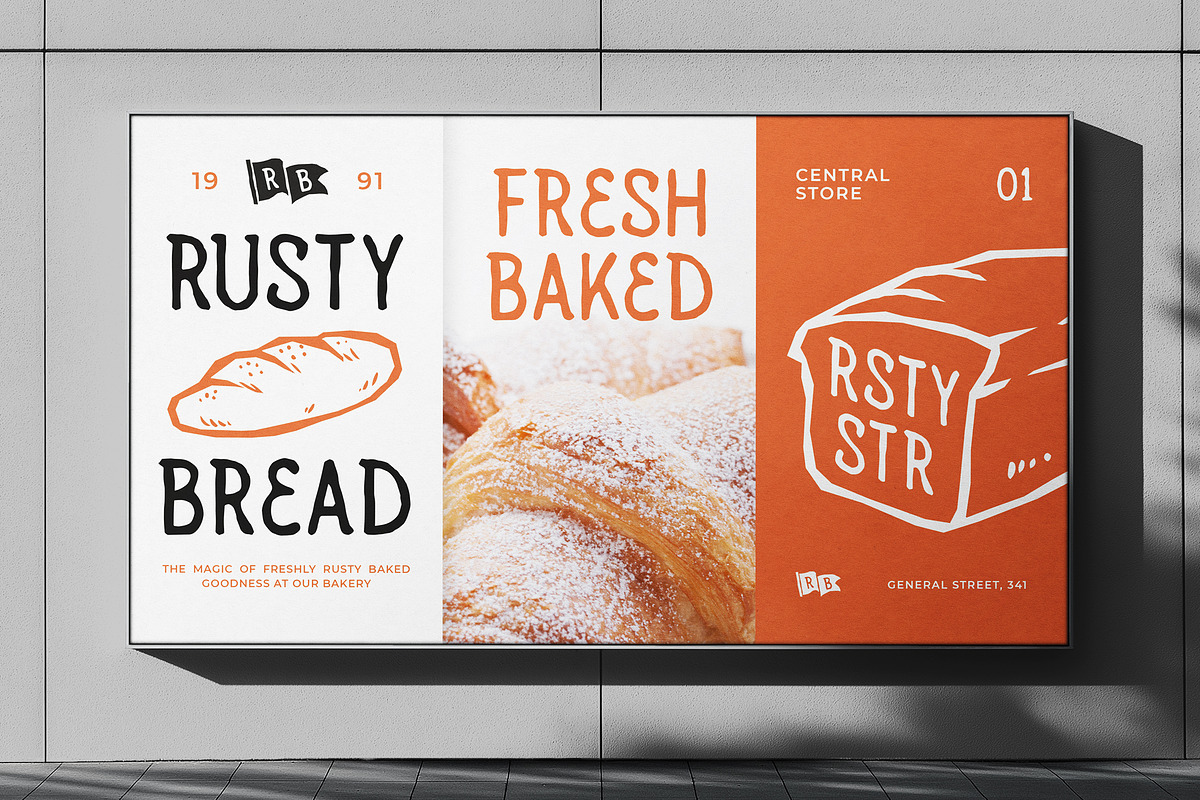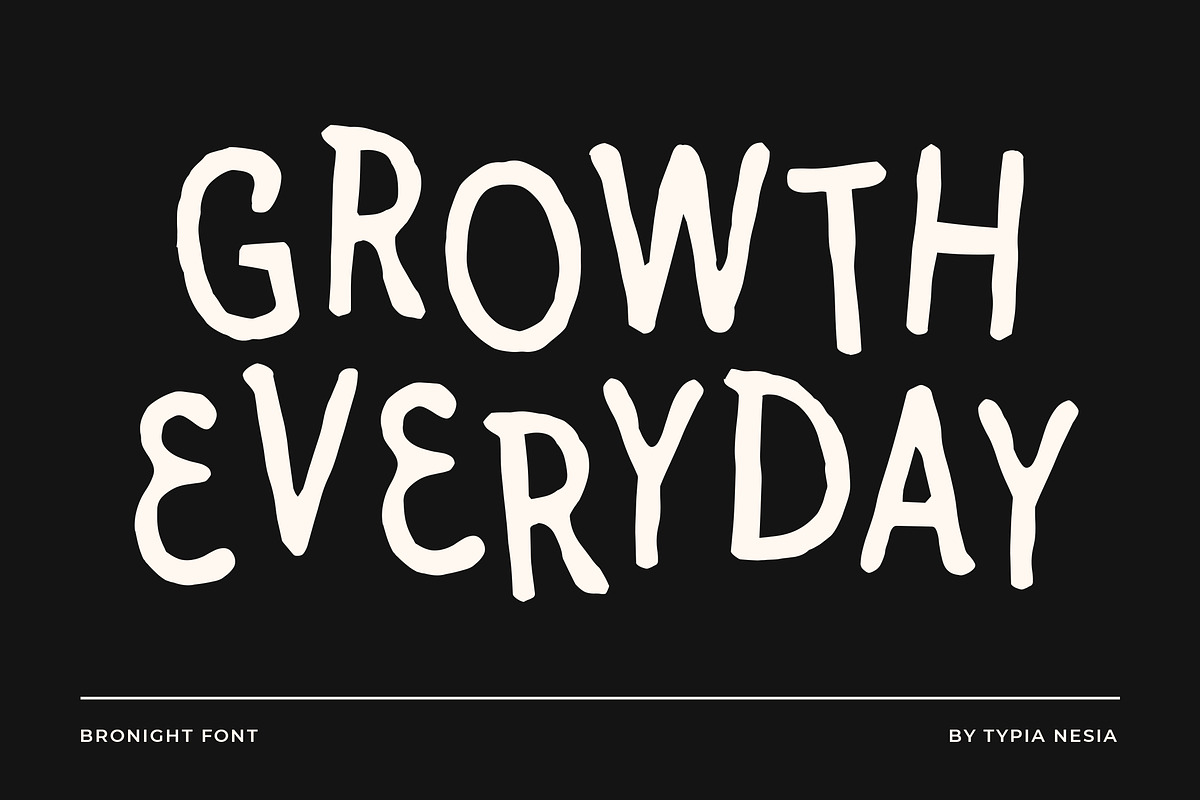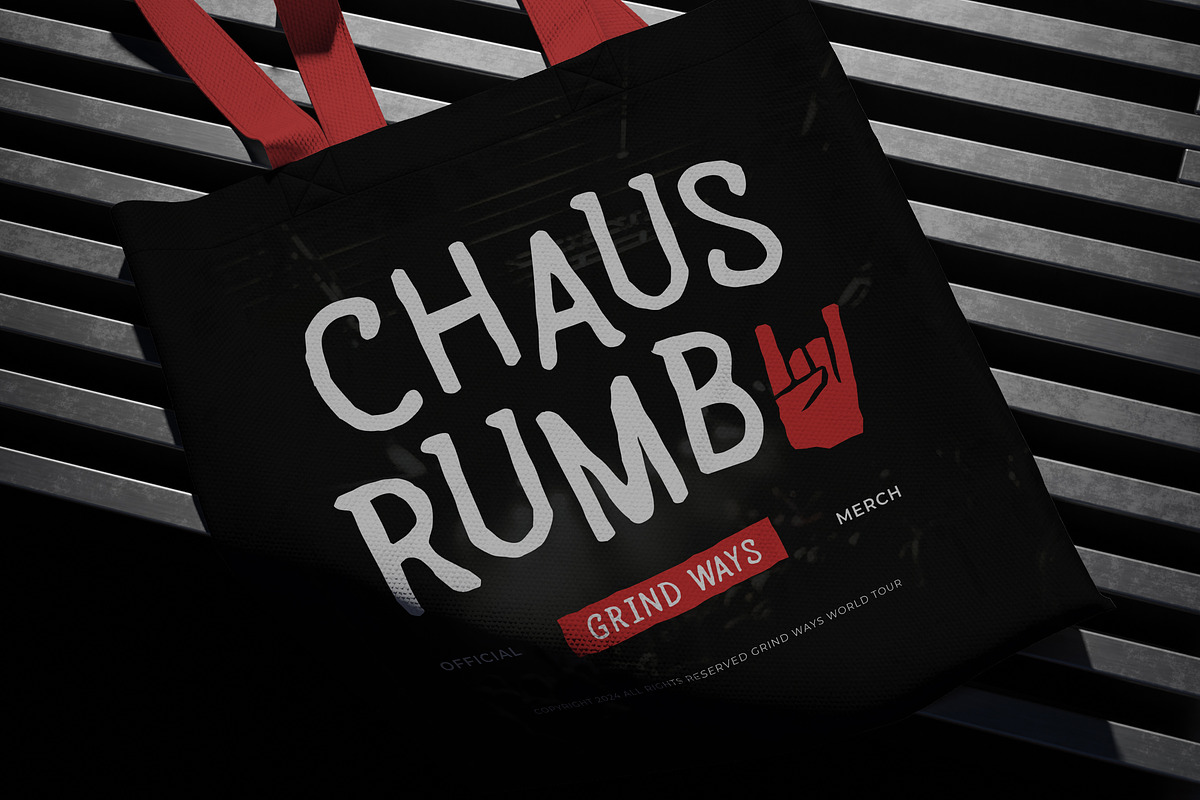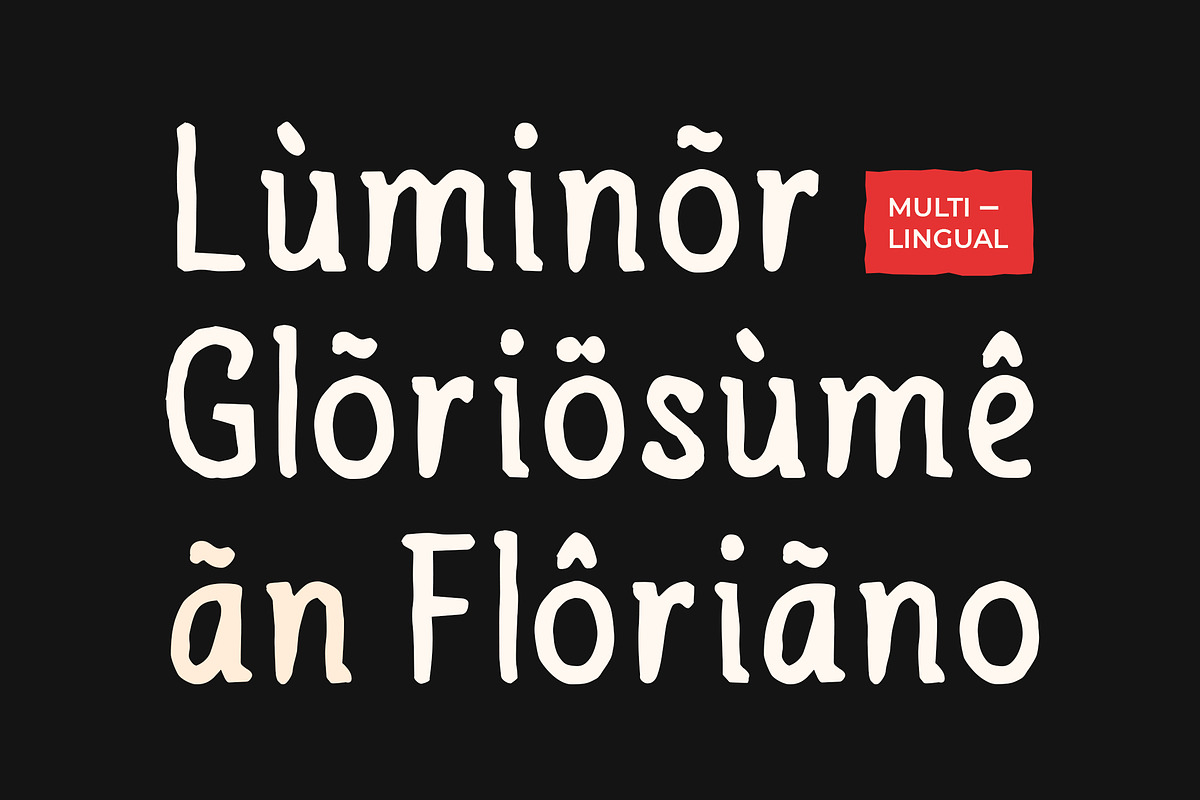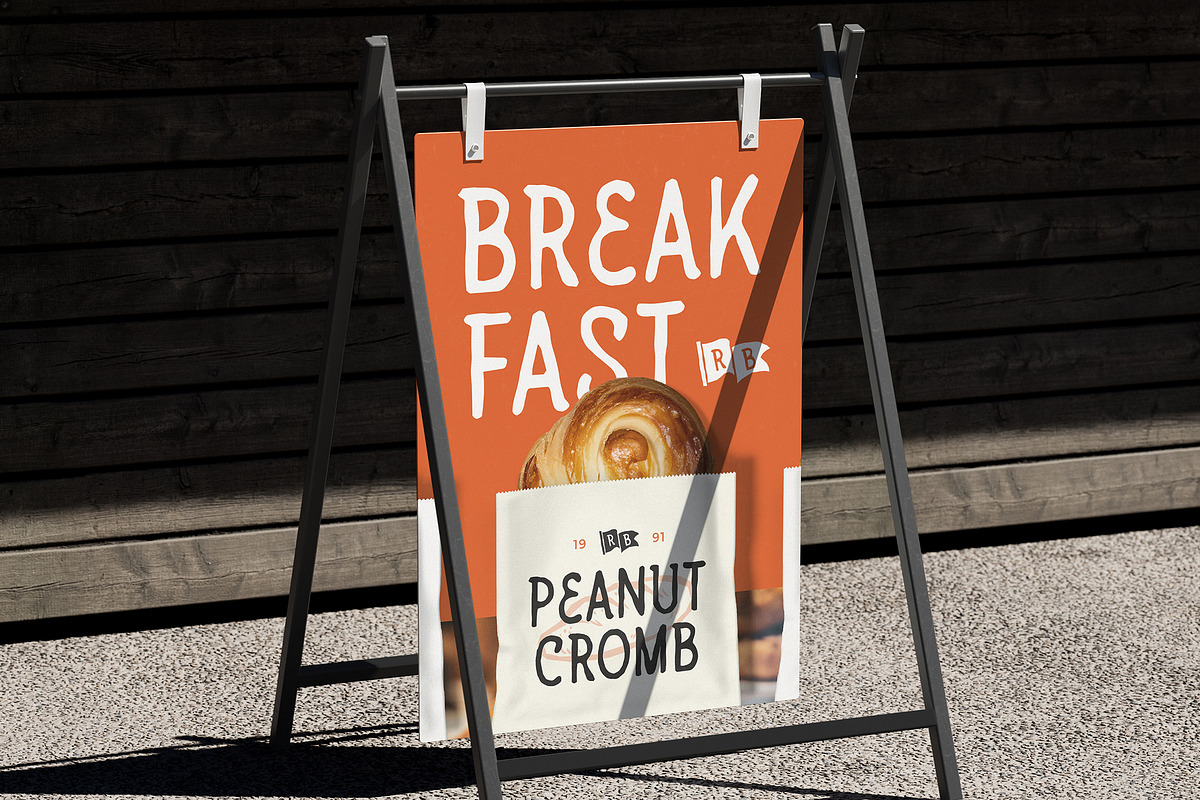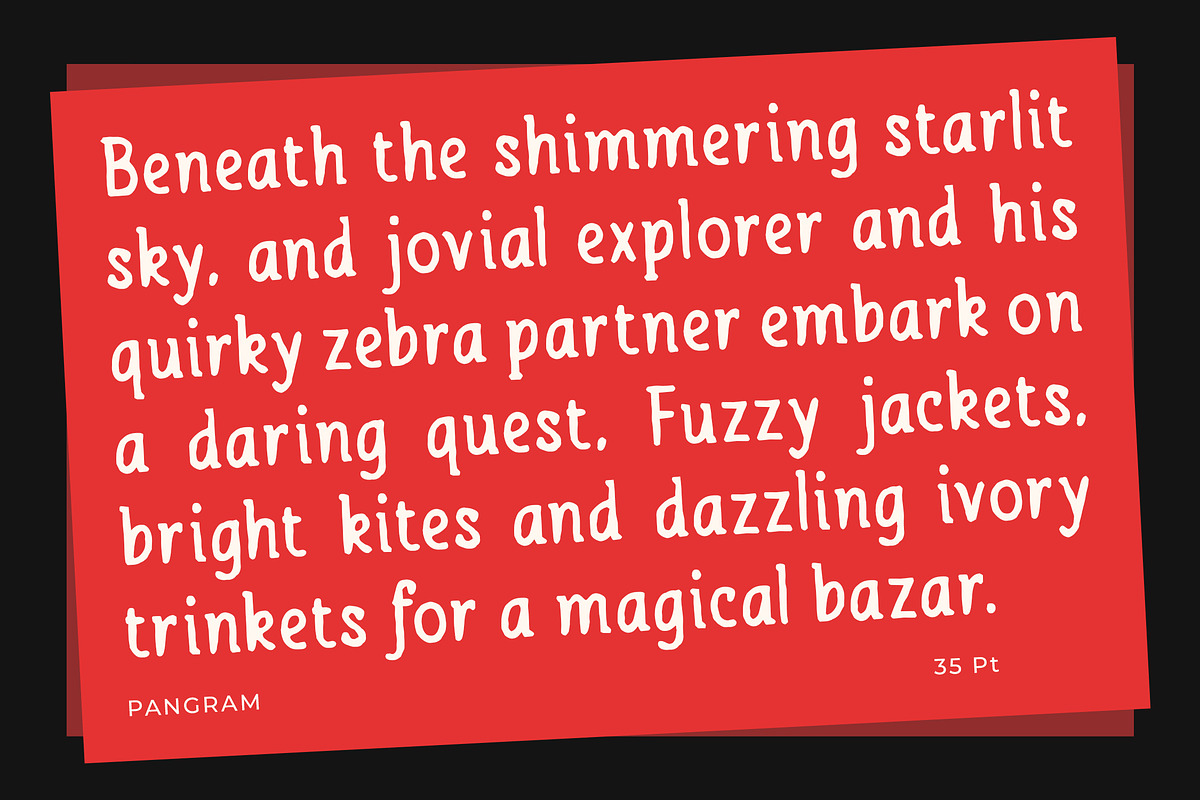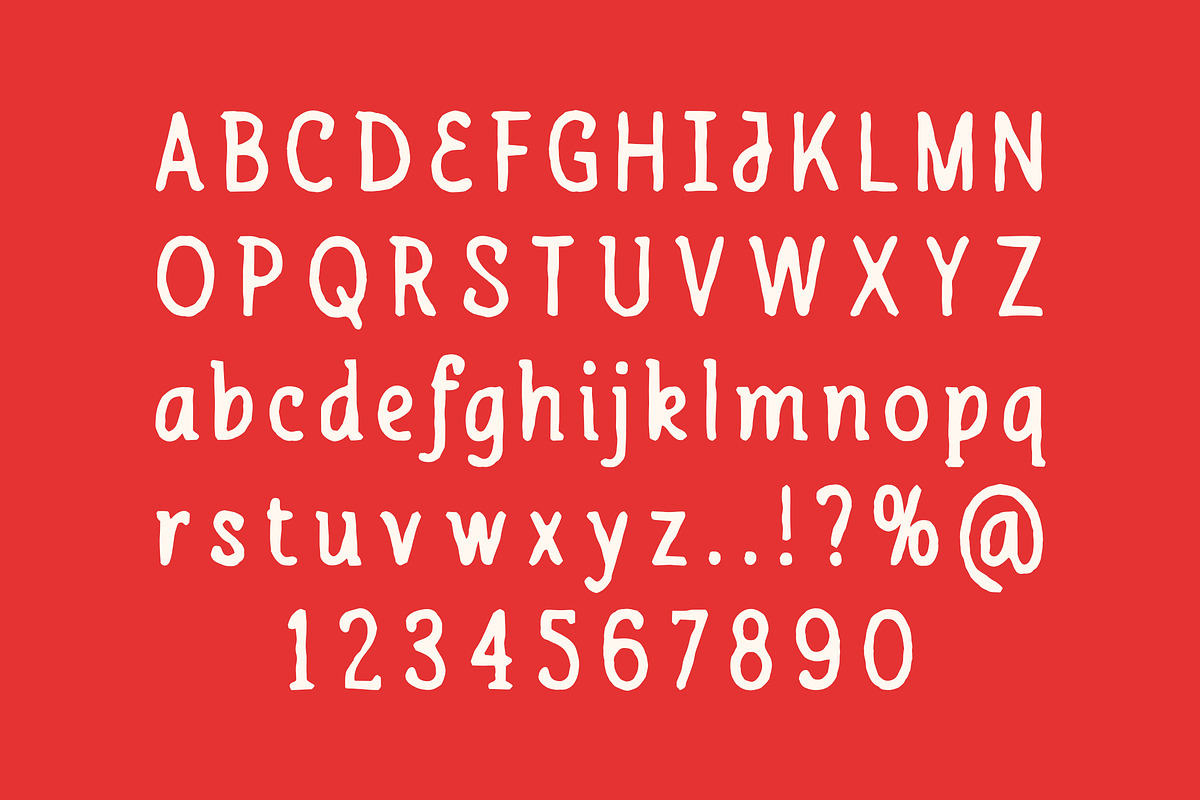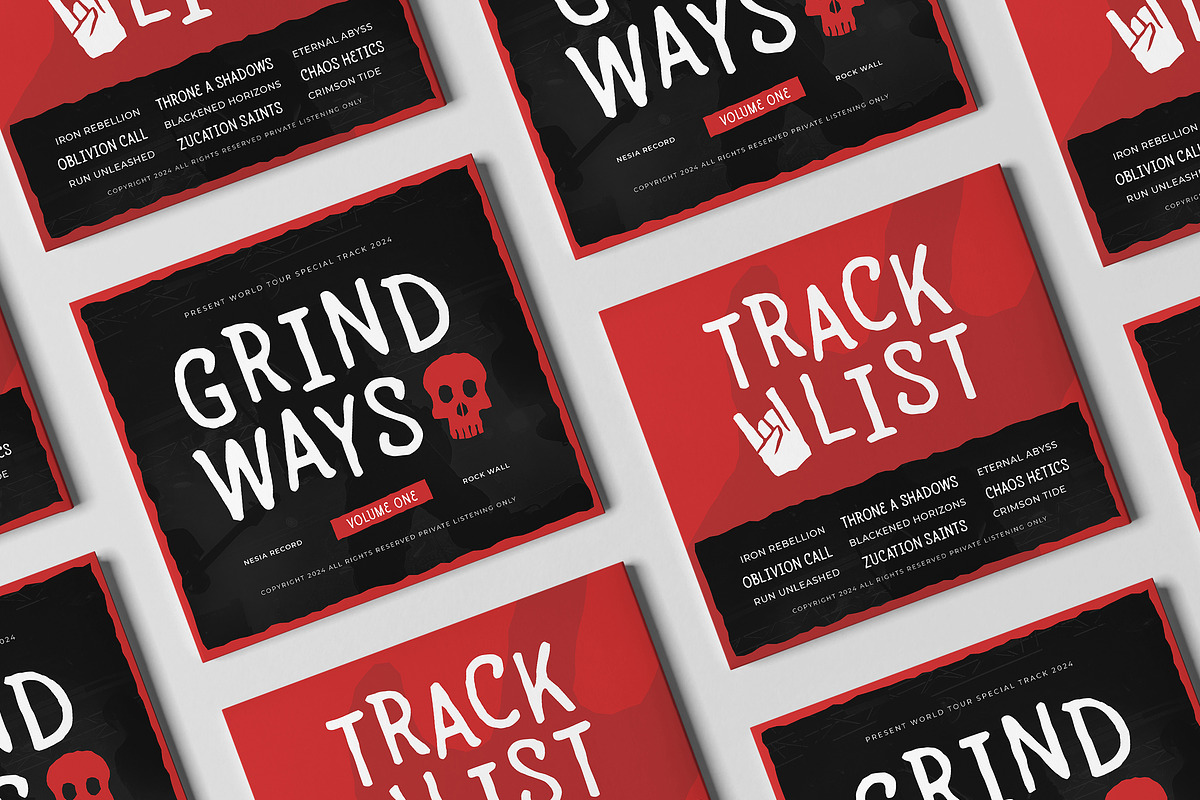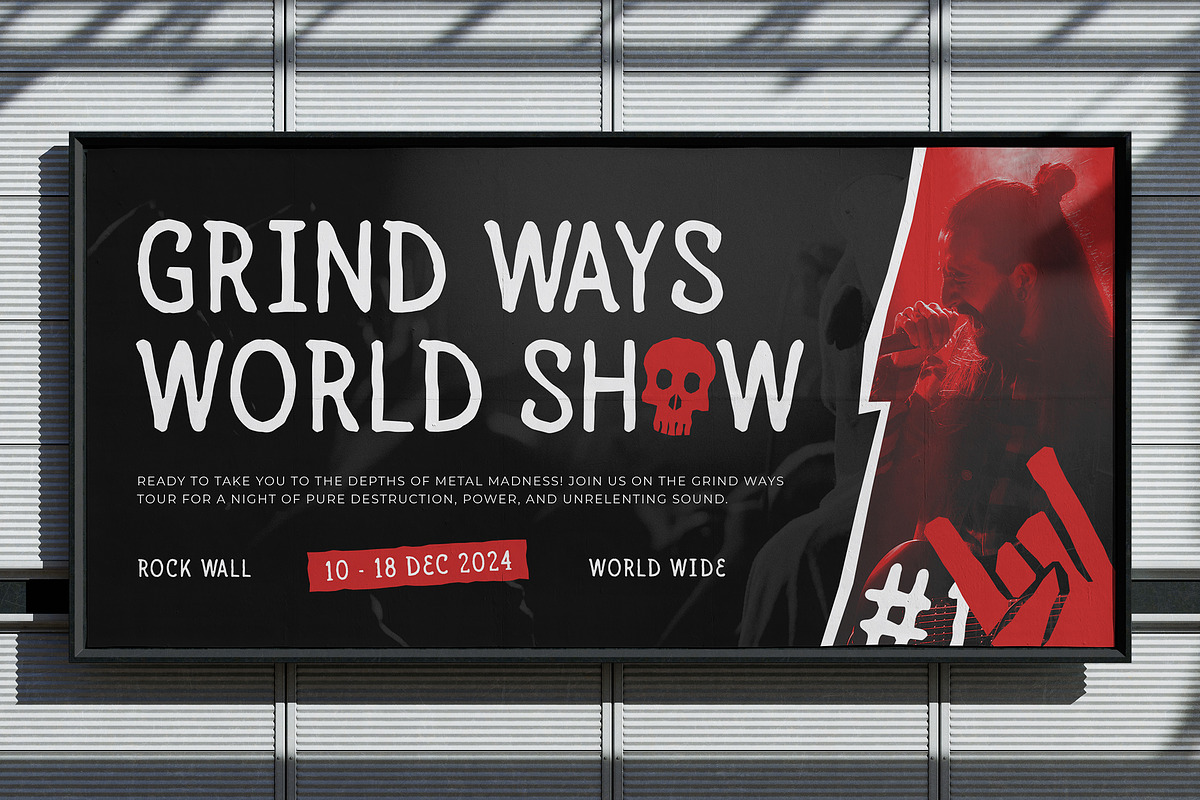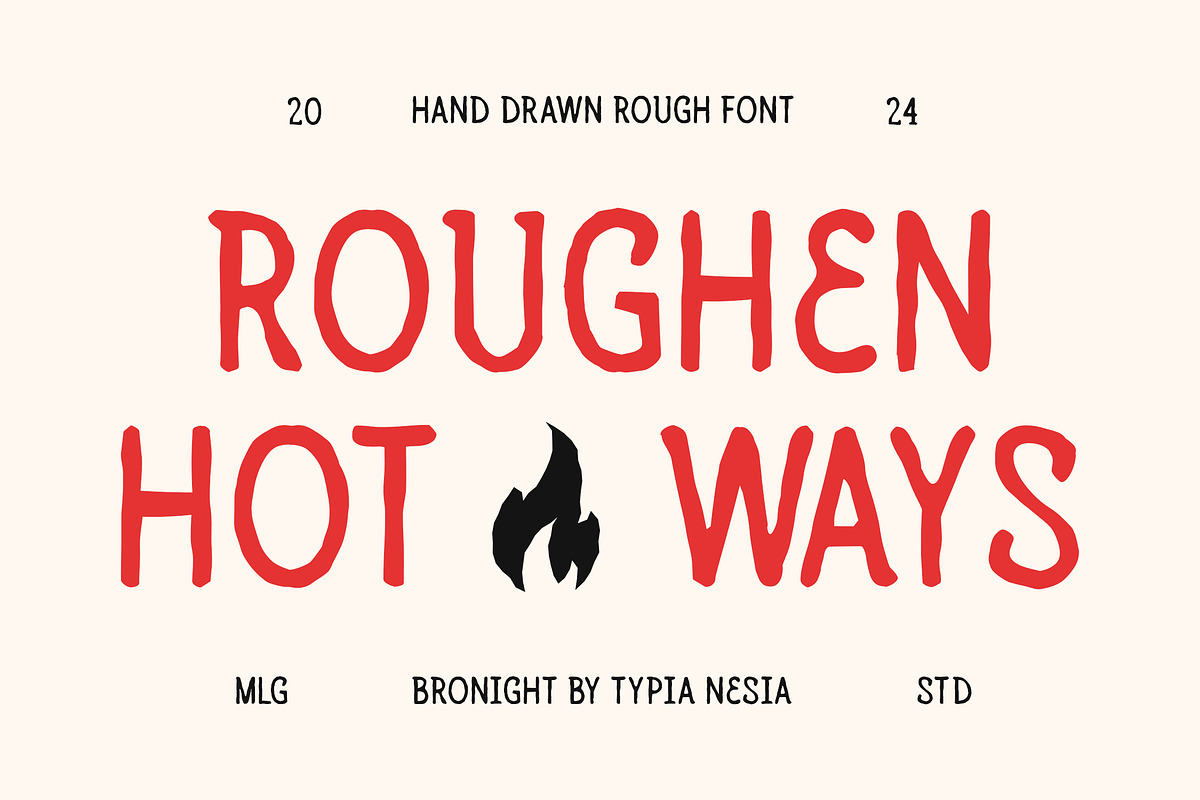
Bronight - Hand drawn Unique Rough
Bronight - Hand drawn Unique Rough Font - Rustic Vintage & Artistic Display Font
Bronight is a hand-drawn unique rough font that with its organic strokes and textured imperfections, Bronight captures the essence of handcrafted artistry, making it a standout choice for projects that require a vintage yet natural aesthetic, such as branding, poster designs, apparel prints, product packaging, rustic logos, social media graphics, book covers, signage, artistic projects and more. Comes with uppercase and lowercase letters, punctuation, and numerals, giving you plenty of flexibility for creative compositions. With multilingual support, Bronight ensures your message reaches a global audience while maintaining its artistic appeal. Designed for those who appreciate handcrafted design and rugged aesthetics, Bronight is perfect for projects that need a natural, raw, and artistic touch, whether you're working on vintage-themed designs or looking for a handcrafted touch, Bronight adds a raw and expressive charm to your typography.